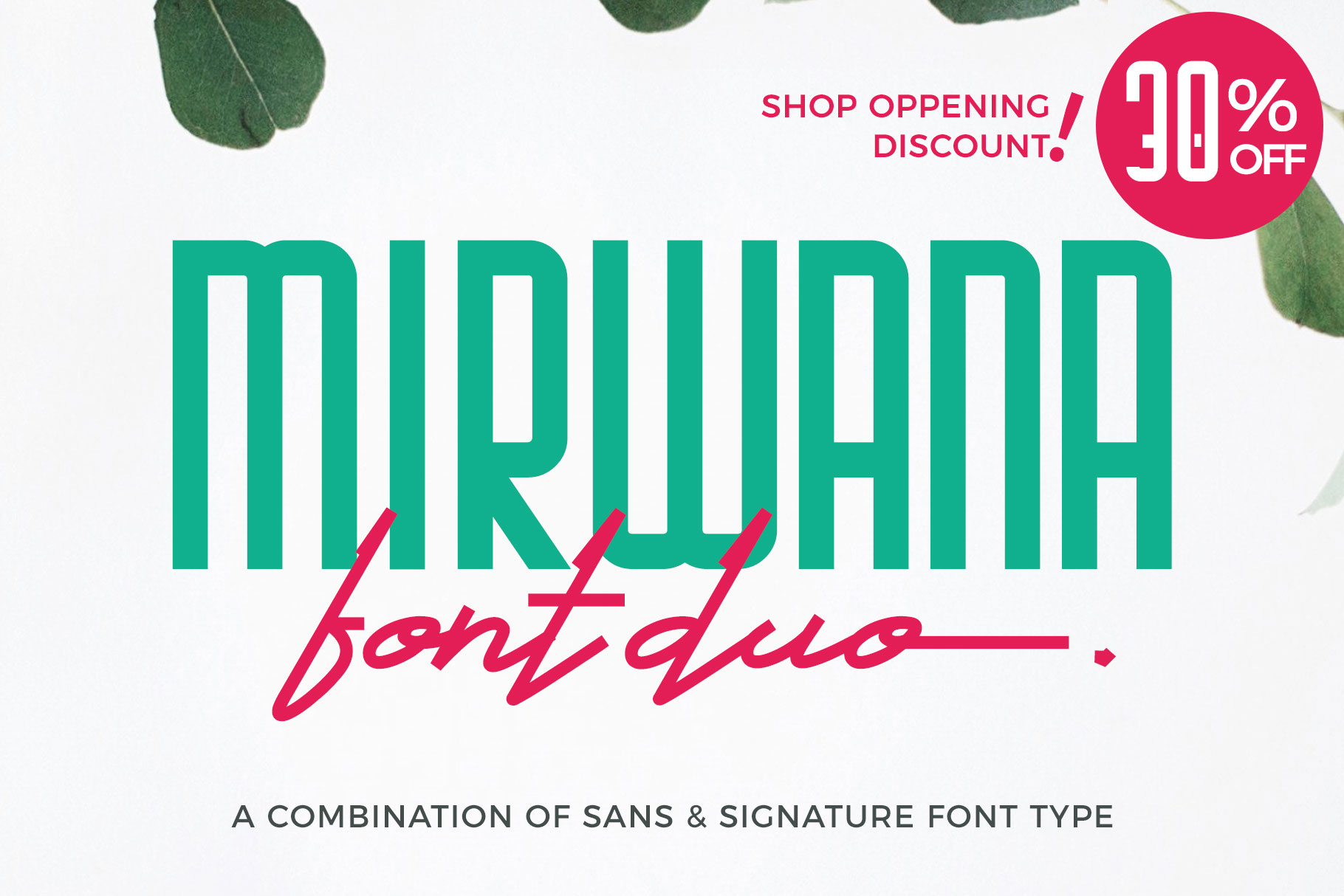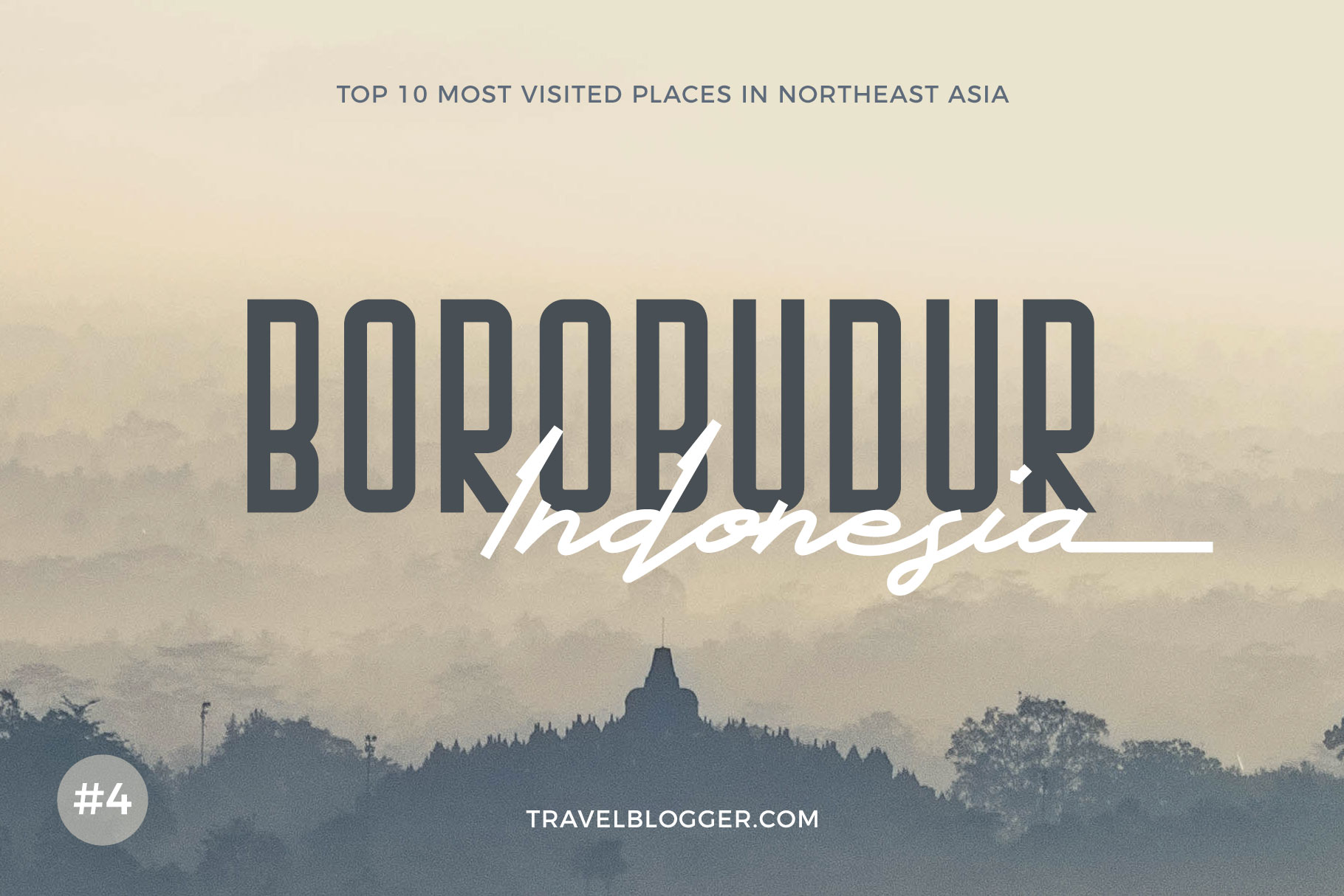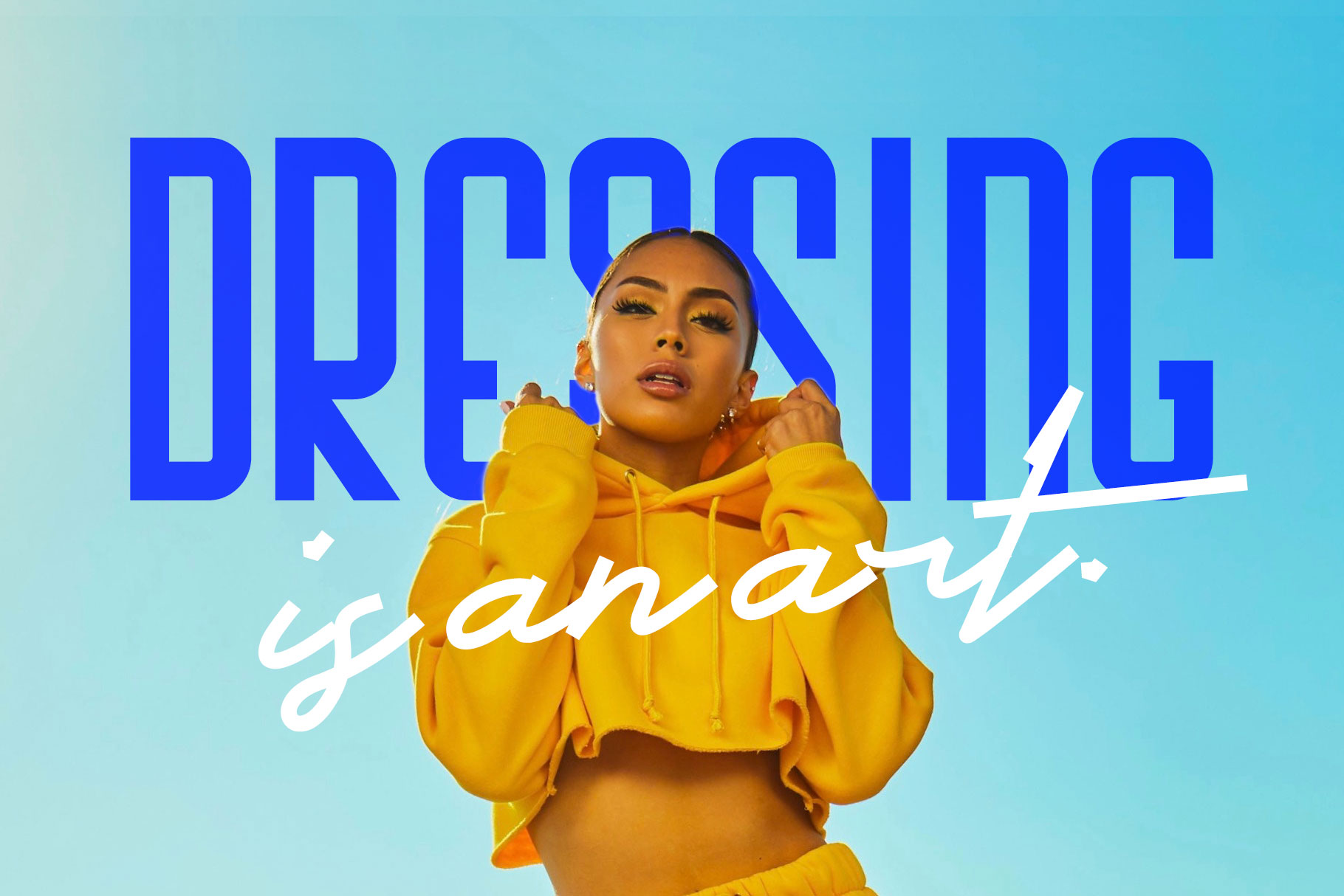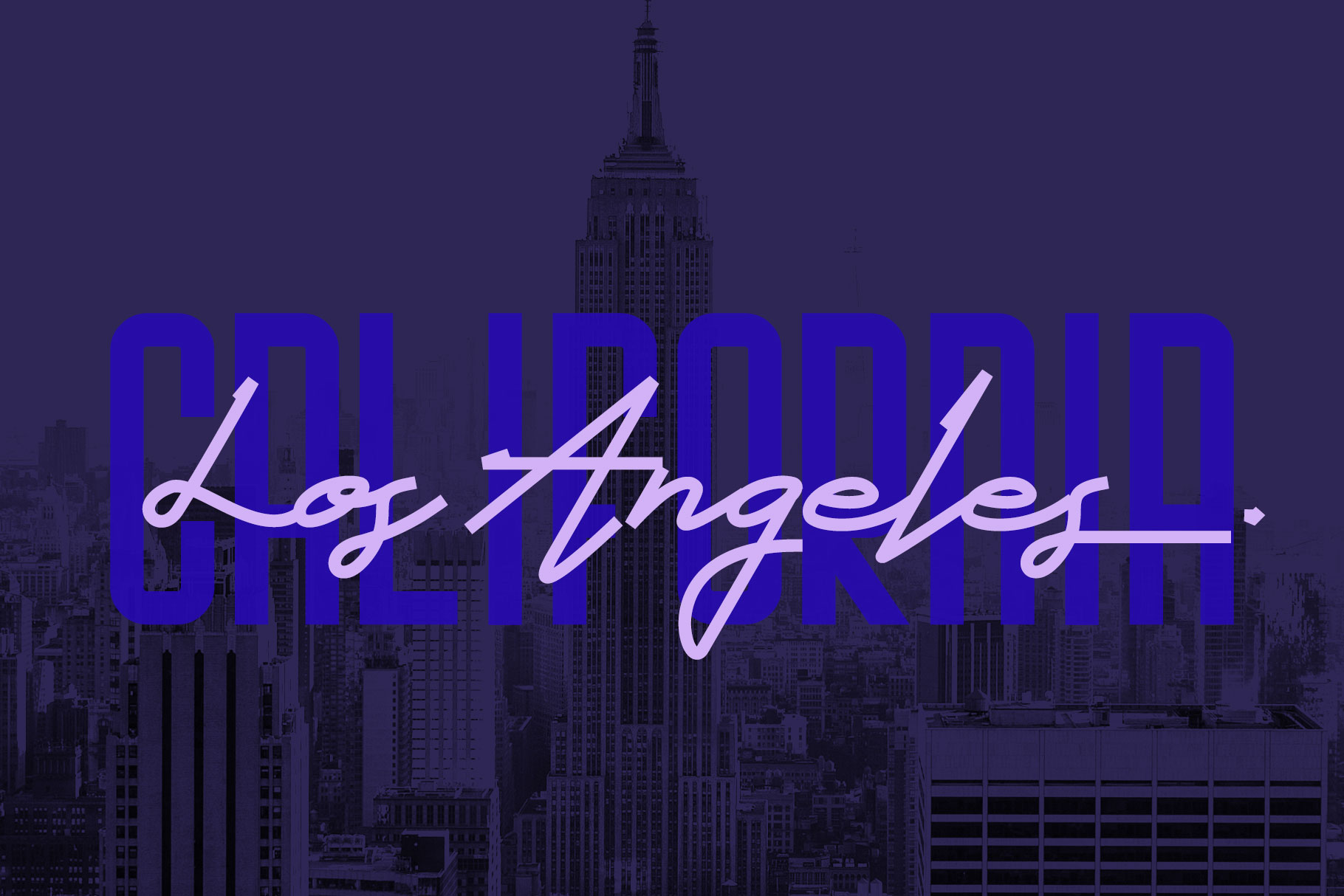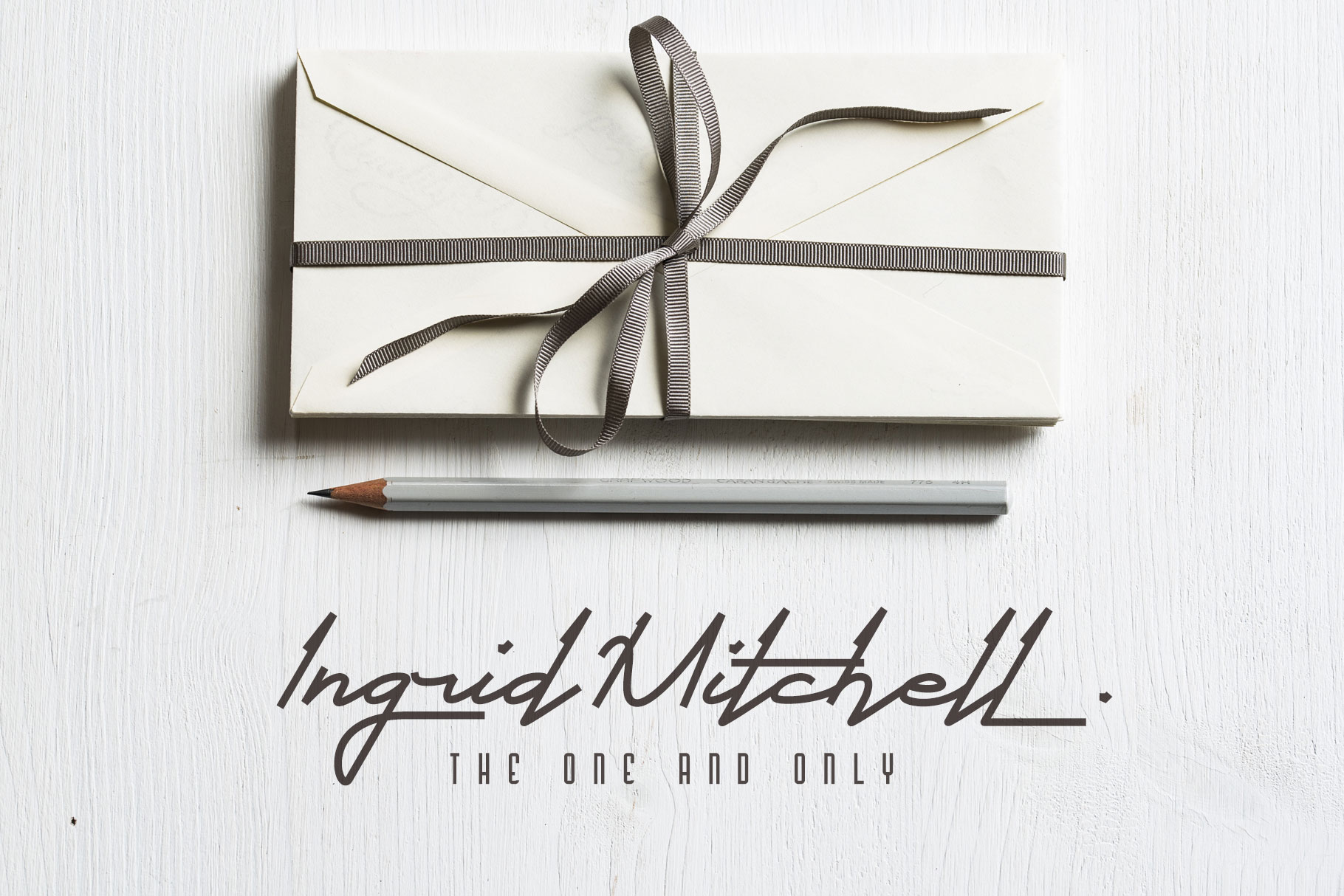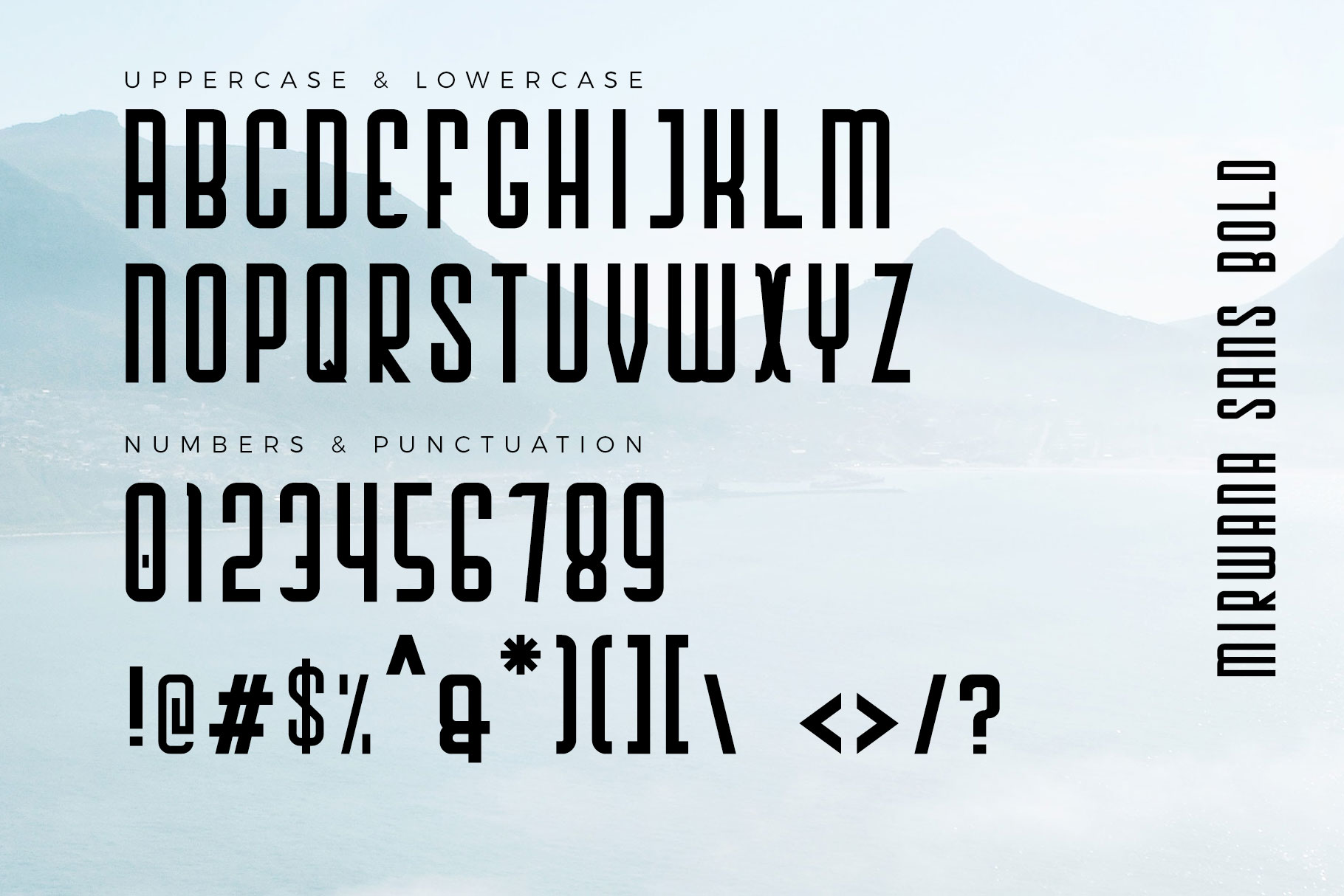
About Mirwana Font
The Mirwana Font duo is a combination of a unique Sans Serif font combined with a handwritten signature script.
The Mirwana Font Duo is perfect for many different projects. As both the sans serif and the script go together extremely well, there is almost no limitation to what you can use this font for.